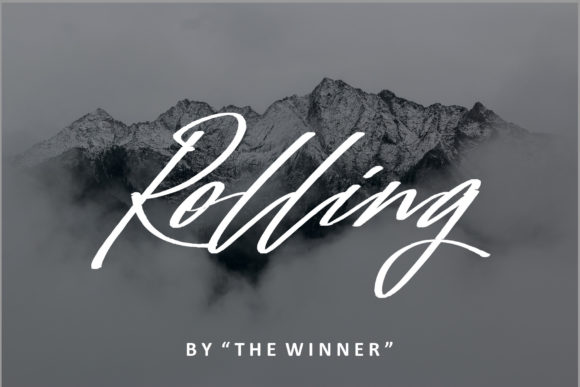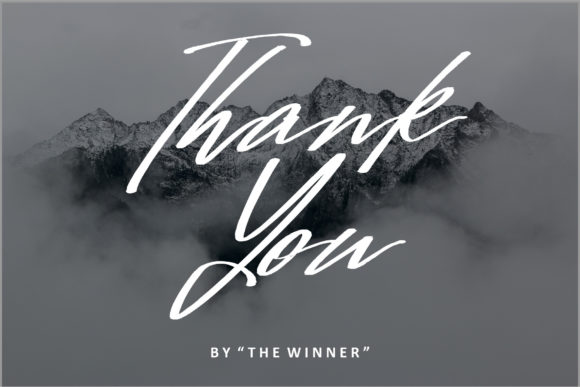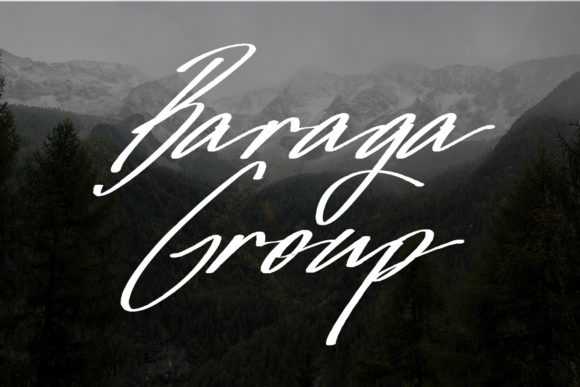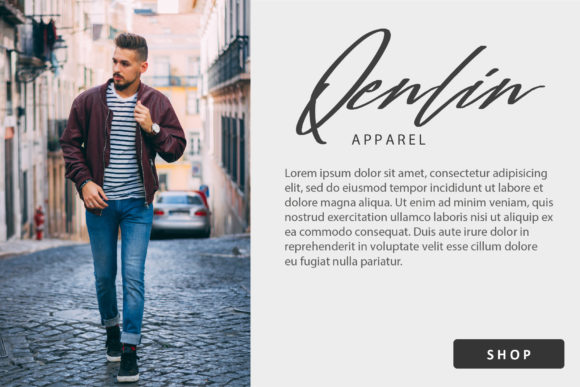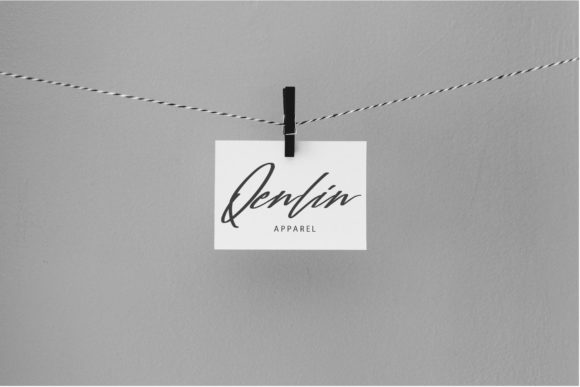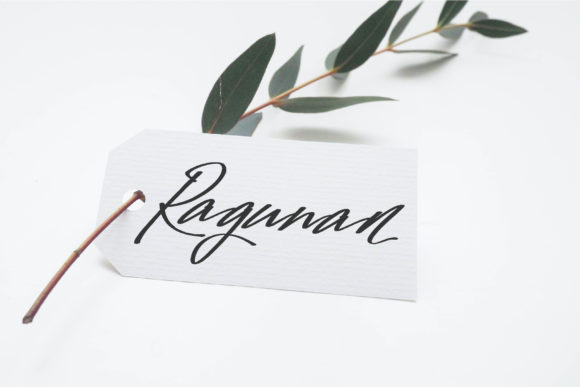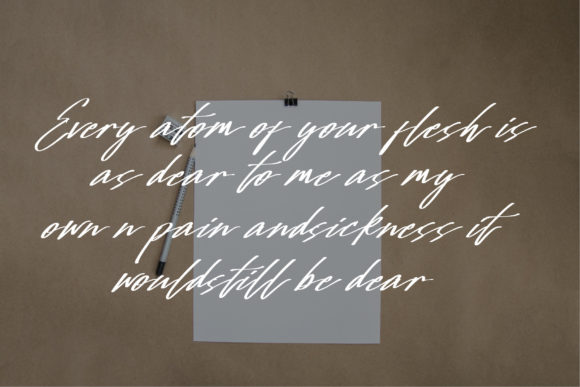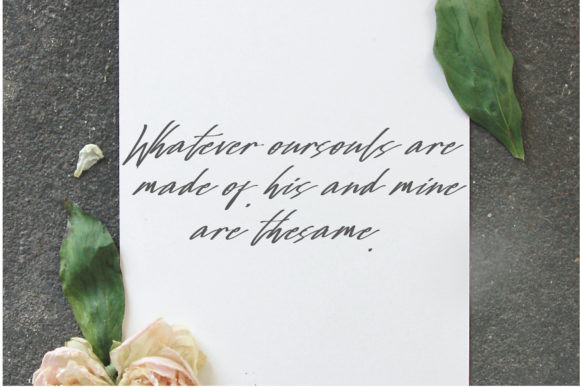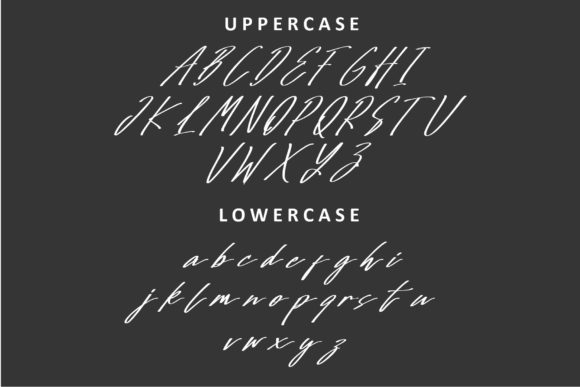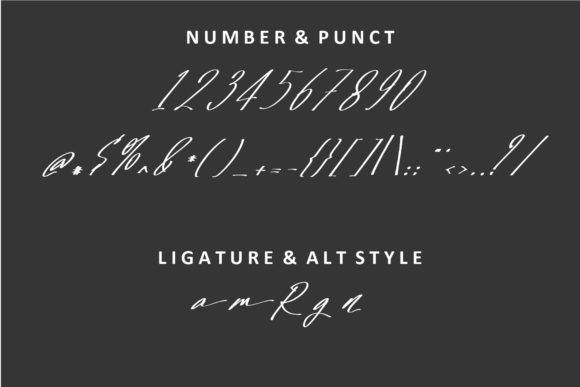
Rolling Font
About Rolling Font
Rolling is a stylish and incredibly elegant script font that adds a touch of sophistication to any design. With its beautiful letterforms and graceful curves, this font is perfect for wedding invitations, thank you cards, quotes, greeting cards, logos, business cards, and more.
The flowing and delicate nature of Rolling’s script makes it an ideal choice for elegant and romantic designs. Its sophisticated strokes and intricate details give your text a handwritten touch that exudes charm and grace. Whether you’re creating wedding stationery or crafting a heartfelt message, Rolling adds a touch of luxury and refinement.
One of the notable features of Rolling is its versatility. It can effortlessly adapt to various design contexts and styles. Whether you’re aiming for a classic and timeless look or a more modern and contemporary aesthetic, Rolling enhances your design with its elegant script. Its refined appearance elevates your text and makes it visually appealing.
Rolling is particularly well-suited for wedding-related designs. Its elegant and delicate strokes make it a popular choice for wedding invitations, save-the-dates, and thank you cards. It adds a touch of sophistication to these special occasions and sets the tone for a memorable celebration.
Furthermore, Rolling can be used for quotes, greeting cards, logos, and business cards, allowing you to infuse elegance into a variety of design projects. Its timeless and refined style makes it suitable for both personal and professional use.
When it comes to readability, Rolling strikes a balance between style and legibility. Its carefully designed letterforms ensure that your text is easily readable while maintaining its elegant appearance. This ensures that your message comes across clearly and beautifully.
In conclusion, Rolling is a stylish and incredibly elegant script font that brings sophistication and grace to your designs. Whether you’re creating wedding stationery, thank you cards, quotes, or logos, Rolling adds a touch of luxury and refinement. Let this beautiful font enhance your designs and captivate your audience.